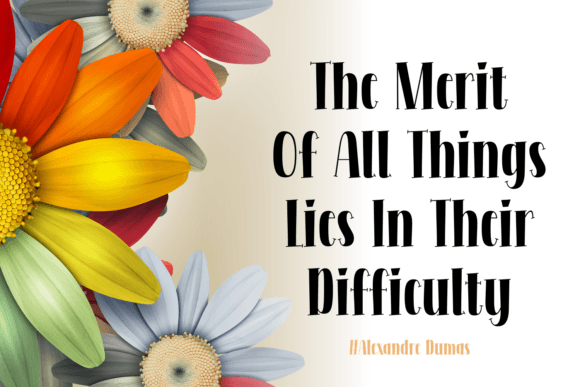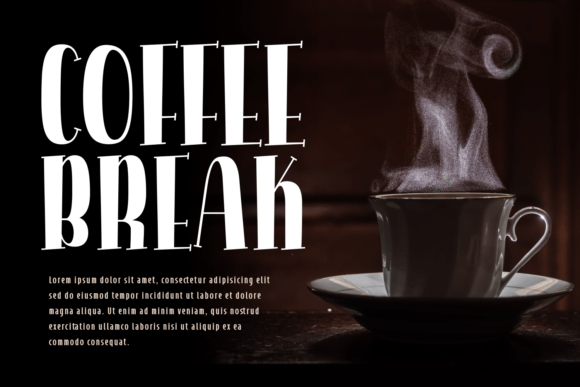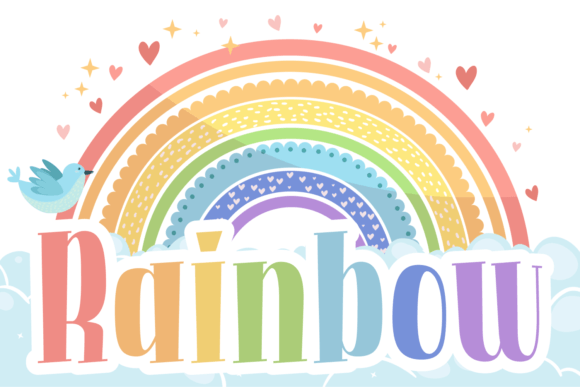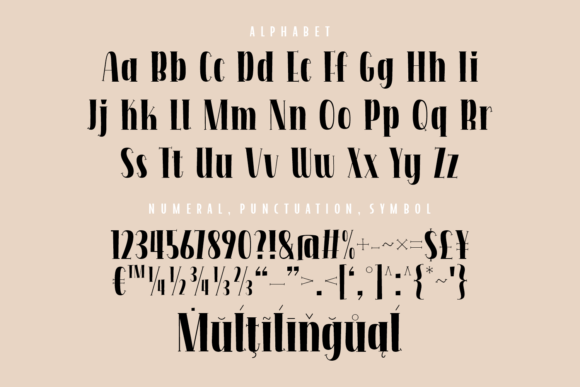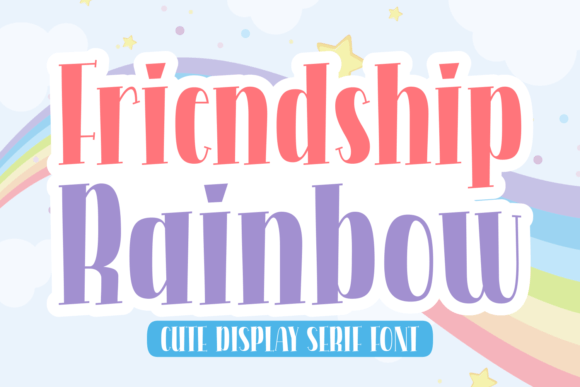
Introducing Friendship Rainbow Font: A Charming Serif Typeface for Creative Projects
Are you a designer, crafter, or creative enthusiast looking for a unique and charming font to bring your ideas to life? Look no further than the Friendship Rainbow Font, a delightful serif typeface that’s perfect for a wide range of design projects. In this article, we’ll explore the features and benefits of this lovely font, and show you how it can elevate your branding, websites, posters, quotes, children’s books, and more.
What is Friendship Rainbow Font?
Friendship Rainbow is a charming and unique serif font that’s designed to add a touch of whimsy and fun to your designs. With its cute and playful aesthetic, this font is sure to capture the hearts of your audience and make your projects stand out. Whether you’re creating a brand identity, designing a website, or crafting a poster or quote, Friendship Rainbow Font is the perfect choice.
Key Features of Friendship Rainbow Font
- Unique Serif Design: Friendship Rainbow Font features a distinctive serif design that’s both elegant and playful.
- Charming Aesthetic: This font has a cute and charming aesthetic that’s perfect for designs that require a touch of whimsy and fun.
- Highly Versatile: Friendship Rainbow Font is suitable for a wide range of design projects, from branding and websites to posters, quotes, and children’s books.
- Easy to Read: Despite its playful design, Friendship Rainbow Font is easy to read and understand, making it perfect for body text and headings.
Benefits of Using Friendship Rainbow Font
So why choose Friendship Rainbow Font for your design projects? Here are just a few benefits of using this lovely font:
- Adds a Touch of Whimsy: Friendship Rainbow Font adds a touch of whimsy and fun to your designs, making them more engaging and memorable.
- Perfect for Creative Projects: This font is perfect for creative projects that require a unique and charming aesthetic, such as children’s books, posters, and quotes.
- Enhances Brand Identity: Friendship Rainbow Font can help enhance your brand identity and make your brand more recognizable and memorable.
How to Use Friendship Rainbow Font
Friendship Rainbow Font is easy to use and can be incorporated into a wide range of design projects. Here are a few ideas to get you started:
- Branding: Use Friendship Rainbow Font to create a unique and memorable brand identity that stands out from the crowd.
- Websites: Add a touch of whimsy and fun to your website with Friendship Rainbow Font, perfect for headings, titles, and body text.
- Posters and Quotes: Create eye-catching posters and quotes with Friendship Rainbow Font that are sure to grab attention.
- Children’s Books: Use Friendship Rainbow Font to create engaging and interactive children’s books that kids will love.
Tips and Tricks for Using Friendship Rainbow Font
Here are a few tips and tricks for getting the most out of Friendship Rainbow Font:
- Experiment with Colors: Friendship Rainbow Font looks great in a variety of colors, so don’t be afraid to experiment and find the perfect hue for your design.
- Mix and Match Fonts: Combine Friendship Rainbow Font with other fonts to create a unique and visually appealing design.
- Pay Attention to Kerning: Make sure to adjust the kerning and spacing of Friendship Rainbow Font to ensure that it looks great in your design.